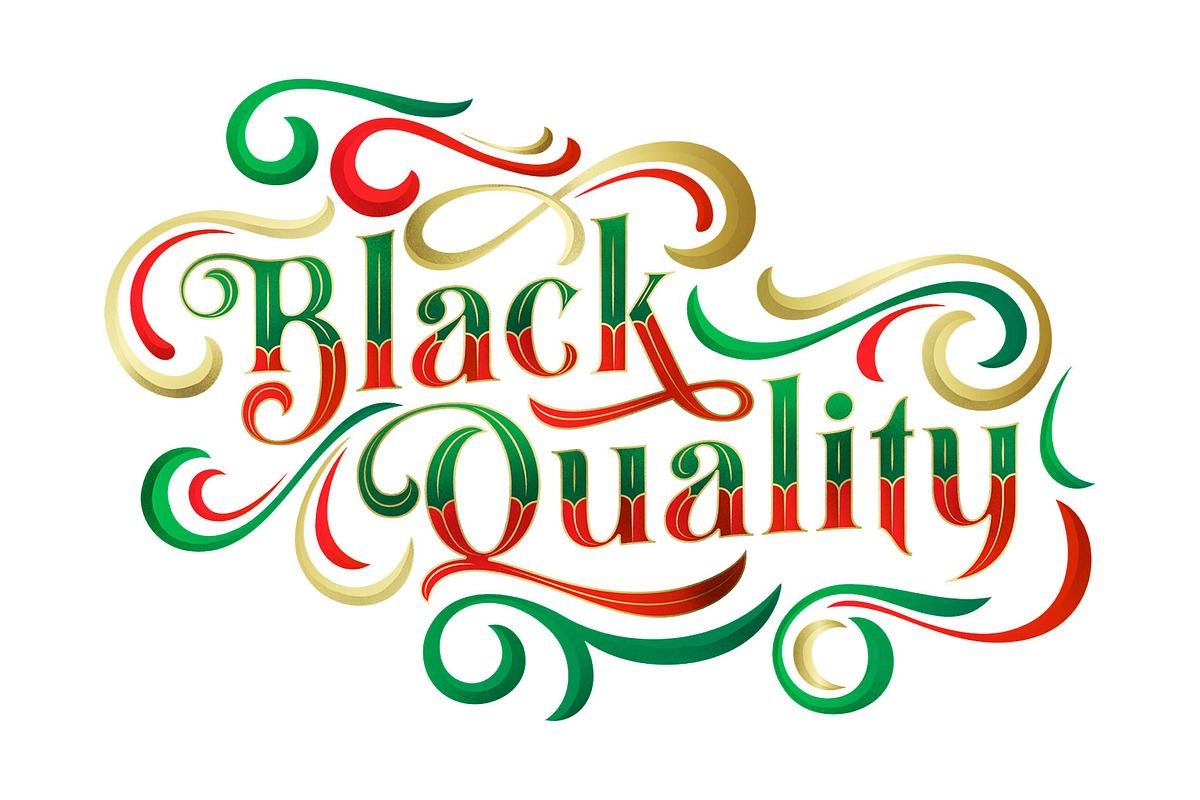
The Black Quality Typeface Free Download is a bold, luxurious font perfect for high-end branding, editorial designs, product packaging, and fashion-related content. With its elegant curves and strong letterforms, this typeface brings a premium feel to any design it touches. Whether you're crafting a logo for a luxury brand or designing an upscale magazine cover, Black Quality delivers undeniable sophistication.
This typeface is ideal for designers who want to communicate class and strength at the same time. It includes stylistic alternates, ligatures, and multilingual support, ensuring flexibility and professional-quality results across various design projects. Its high contrast and clean lines make it equally stunning in large headlines or smaller text applications.